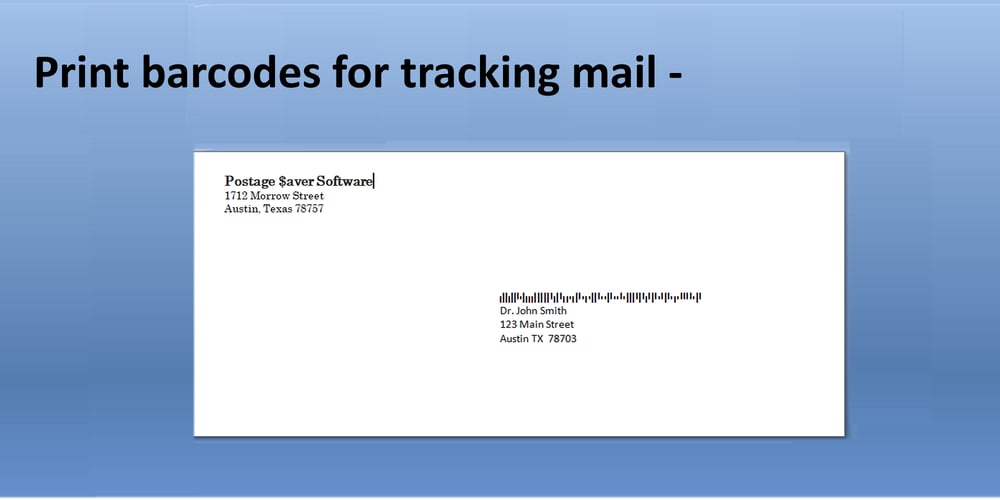
Smart Bars12
Smart Bars12 font
Smart Bars12 Font Family was designed by Scott Hochberg and published by Postage Saver Software. Smart Bars12 contains 1 styles and family package options. This is a special font for use creating US Postal Service “Intelligent Mail” barcodes. Those are the barcodes you see on most cards and envelopes. Commercial mailers get the best pricing by printing barcodes when they address the mail, saving the Postal Service a step. The barcodes are also used on reply mail and Share mail, and for “Informed Visibility” tracking.Software to create these barcodes, including the USPS Intelligent Mail Small Business (IMsB) tool, typically provide an output of 65 characters, each character being an A, D, T or F, corresponding to each of the styles of bar. SmartBars 12 replaces those characters with the corresponding bar. When doing a mail merge to print addresses, the user would set the barcode field on their merge template to be printed using SmartBars 12, at 12 point, regular, and the barcode will print with the correct bars and at the required size to meet USPS requirements.